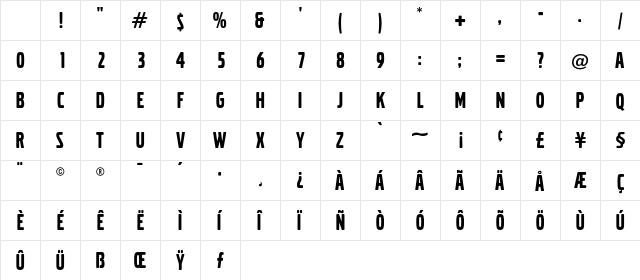
Complete VolvoBroad Regular glyph index. Displaying only characters natively supported by VolvoBroad Regular font.
VolvoBroad is a composed and adaptable typeface that performs quietly and consistently across a wide range of design contexts.